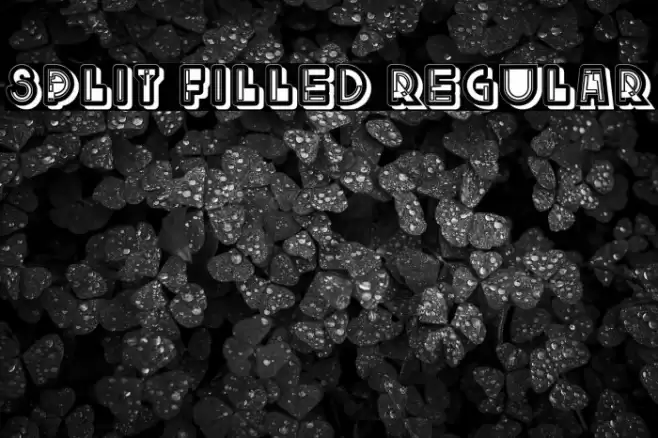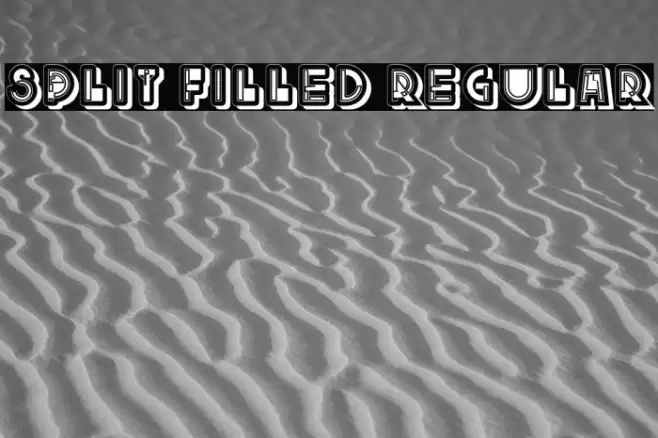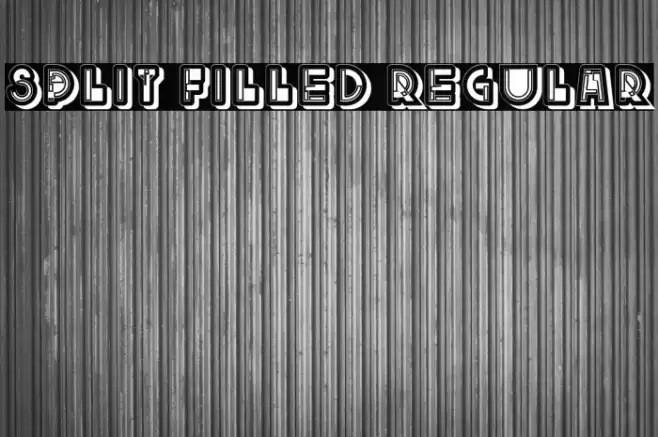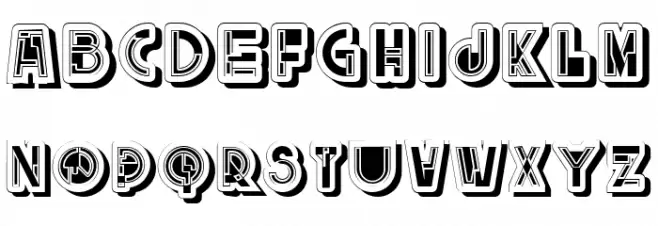
Split Filled Regular Font
Split Filled Regular Description
This font features a bold, decorative style with a unique split-filled design. Each character is outlined with a thick black border, creating a striking contrast against the white interior. The interior of each letter is divided into sections, adding a dynamic and layered appearance. The font maintains a consistent width and height across all characters, ensuring uniformity. Its bold and eye-catching design makes it ideal for attention-grabbing headlines or creative projects. The geometric shapes and clean lines give it a modern and playful feel, suitable for various design applications.
A bold, decorative font with a split-filled design and thick outlines from Decorative fonts.
- Proposed Projects: Ideal for posters, logos, branding, and any project requiring a bold, modern aesthetic.